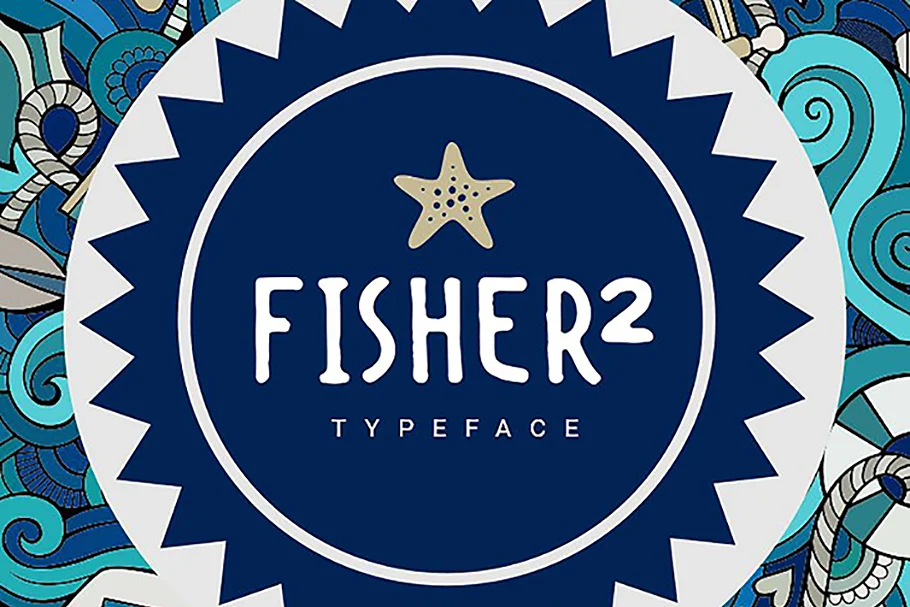
About the Fisher 2 Typeface Font
Introducing a new typeface called Fisher2 which is perfect for Logo, Logotype, quotes, apparel design, invitations, flyers, posters, greeting cards, product packaging, headers, printed quotes, cover album, etc.